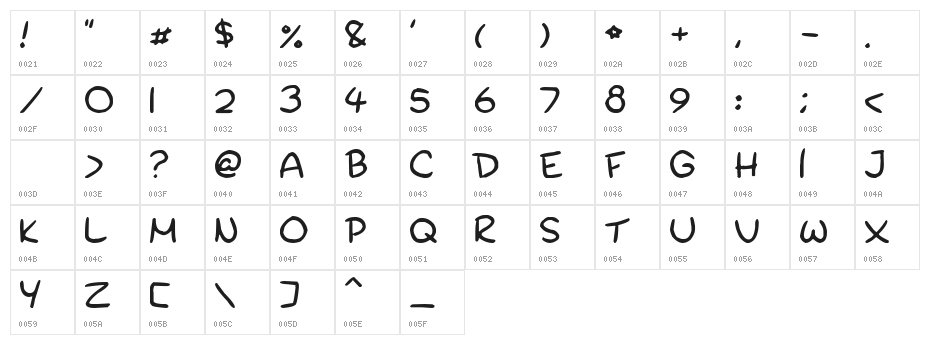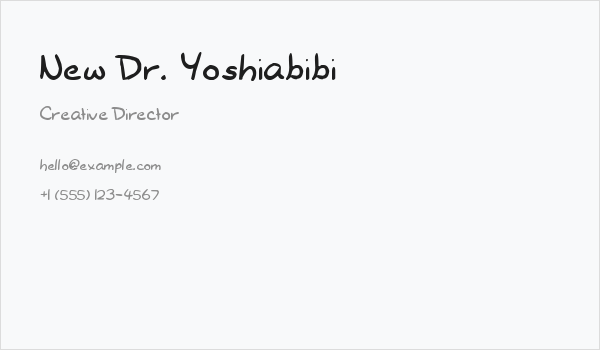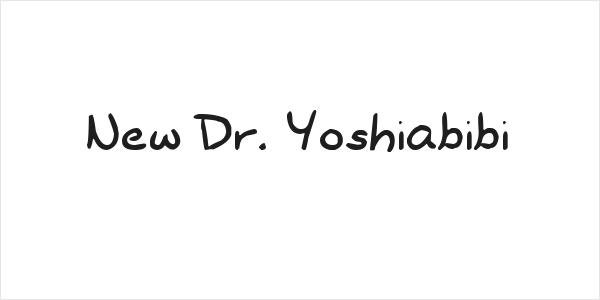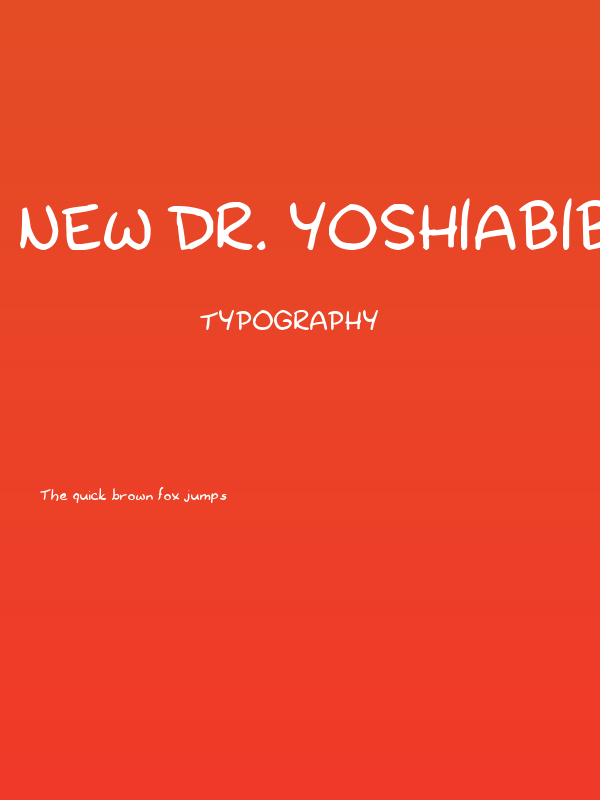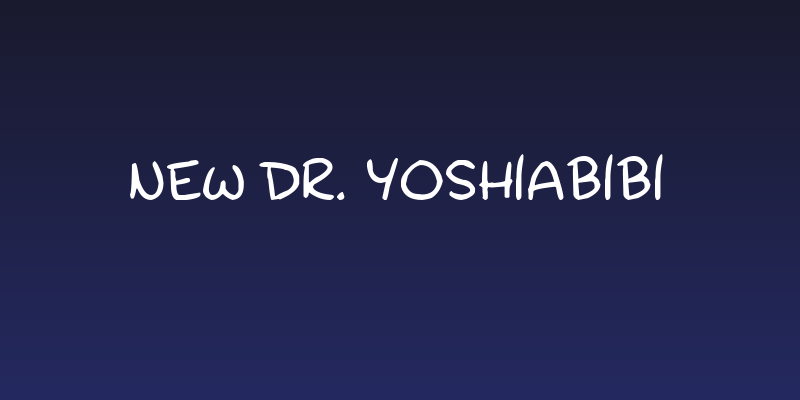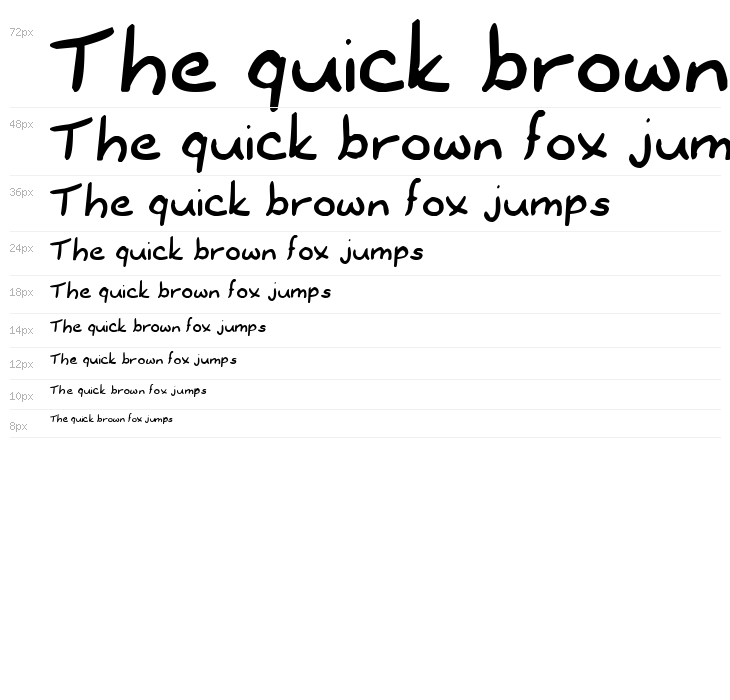
New Dr. Yoshiabibi Font
New Dr. Yoshiabibi Description
This playful and whimsical font features a handwritten style with a casual and friendly appearance. The characters are slightly uneven, giving it an authentic, hand-drawn look. The uppercase and lowercase letters maintain a consistent style, with rounded edges and a smooth flow. The numbers and special characters complement the alphabet with the same informal charm. This font is perfect for projects that require a personal touch, such as greeting cards, children's books, or playful branding.
| Use Case | Headlines, Informal text, Branding |
| Proposed Projects | Ideal for greeting cards, children's books, playful branding, and informal invitations. |